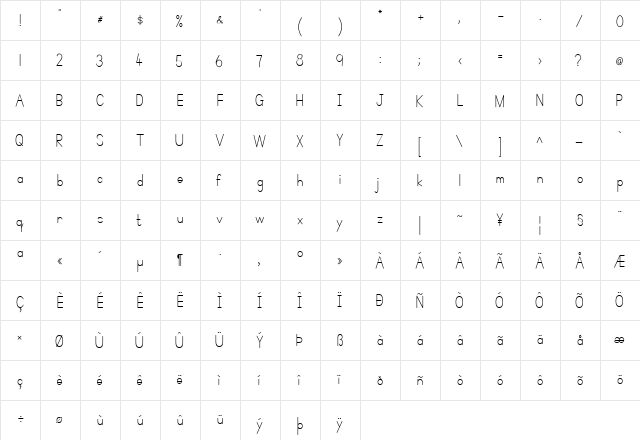
Simple Print Regular
| Foundry | Peter Wiegel |
| Designer | Peter Wiegel |
Design Context for Simple Print Typeface
Simple Print takes a measured approach to typography — its balanced proportions and neutral character make it a reliable workhorse for both digital and print work.